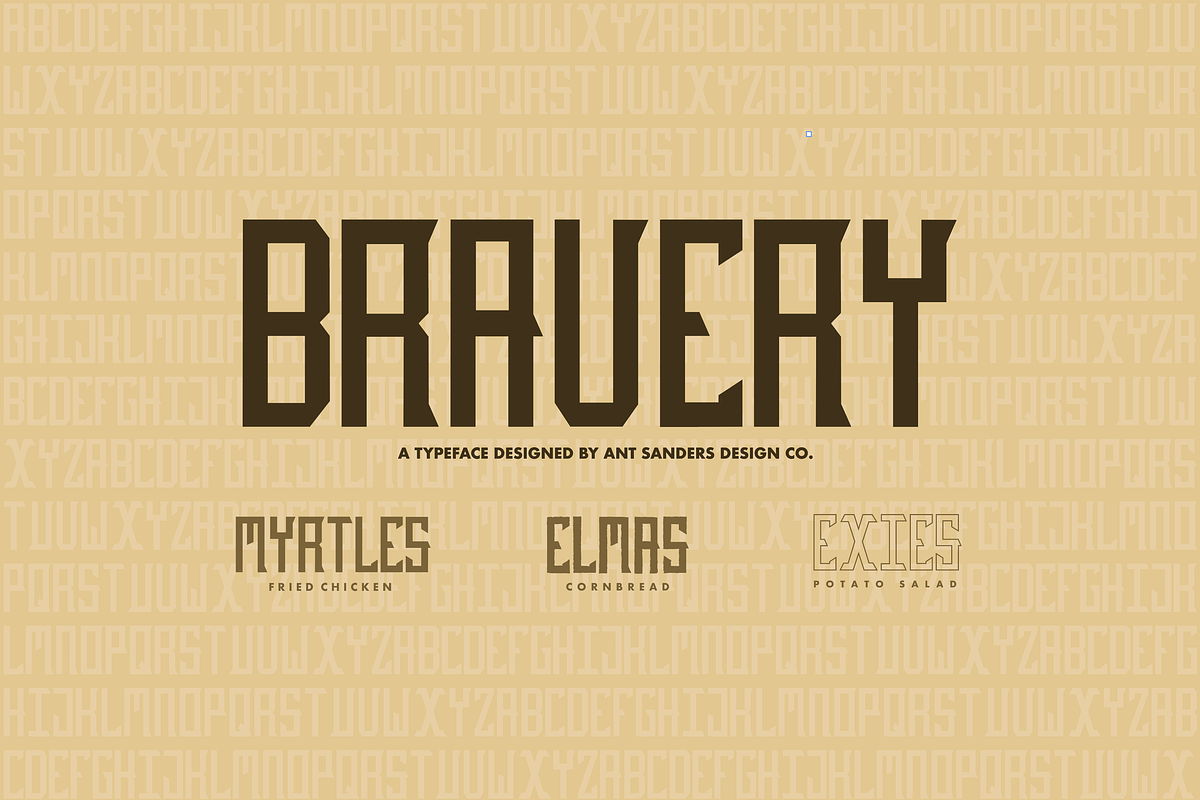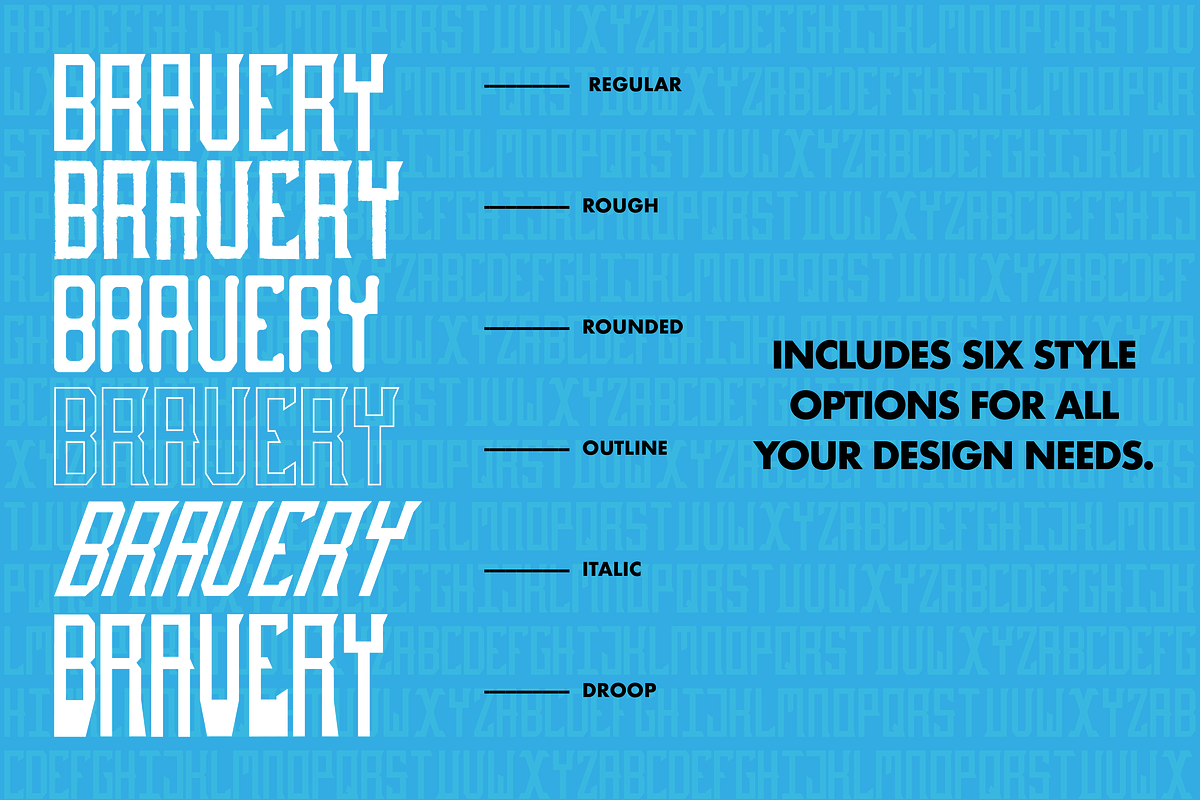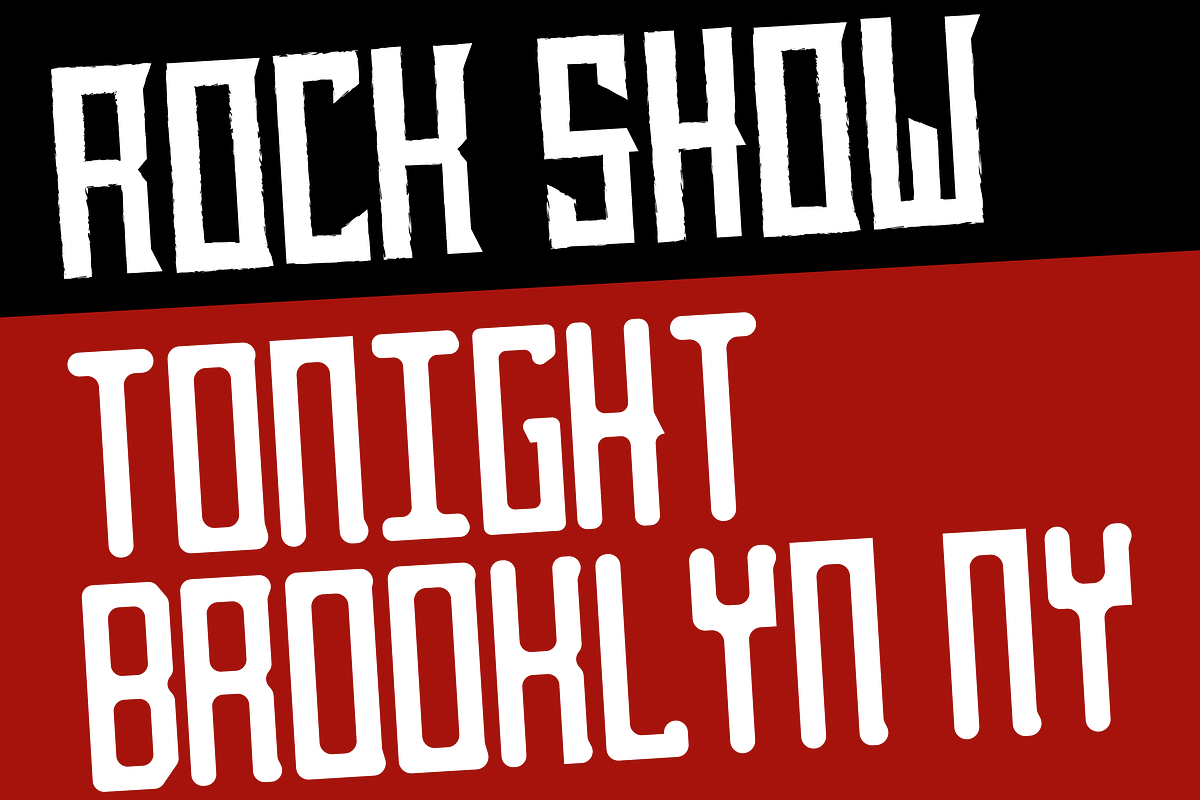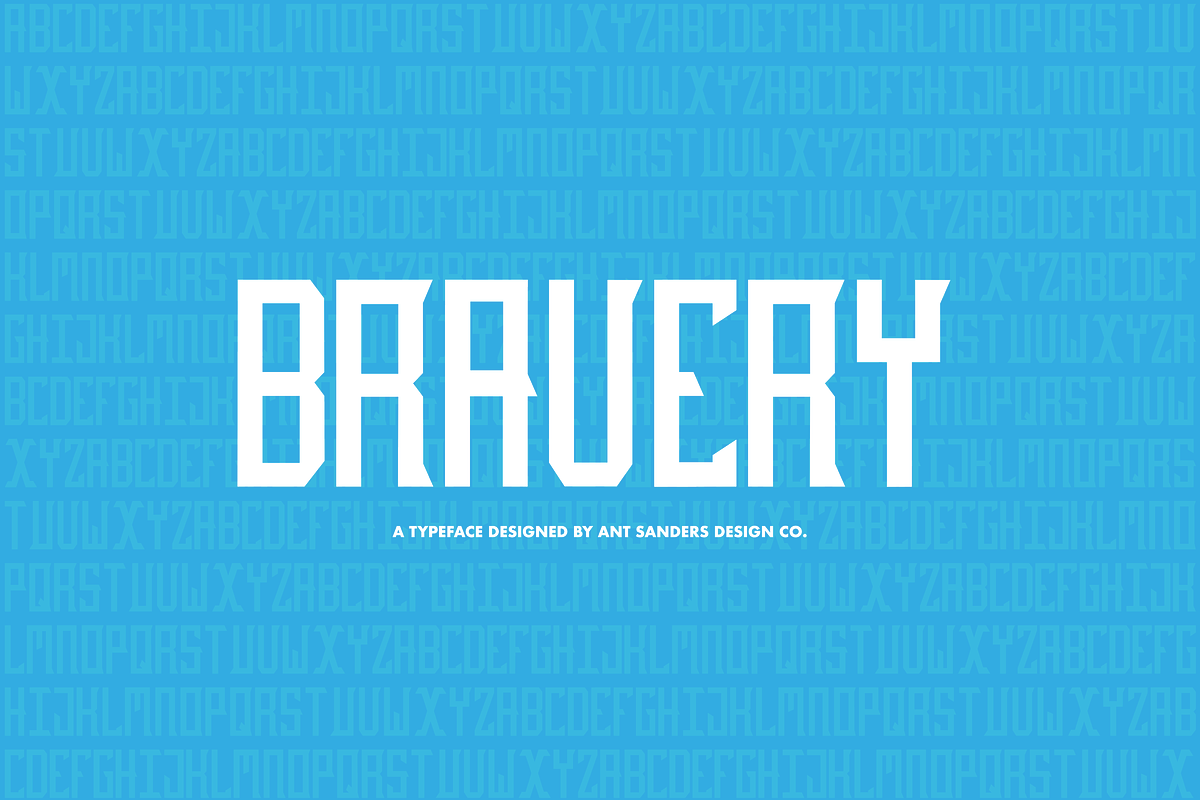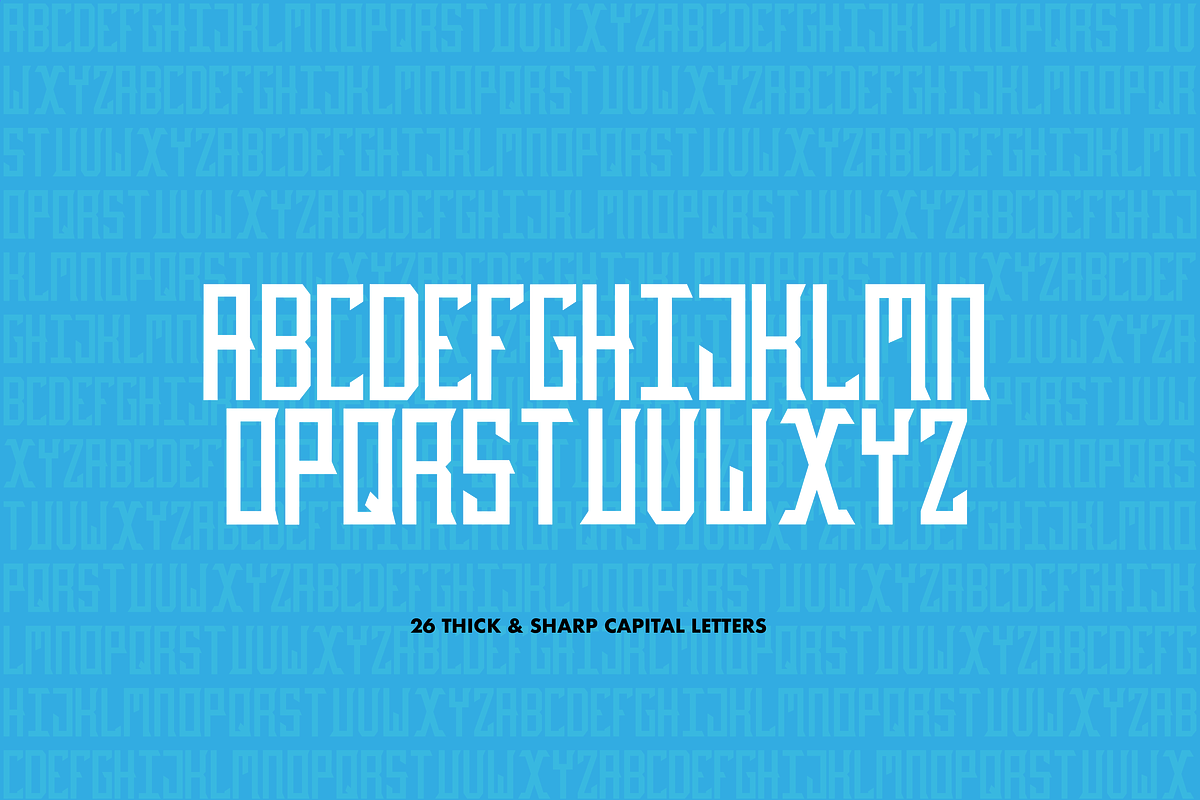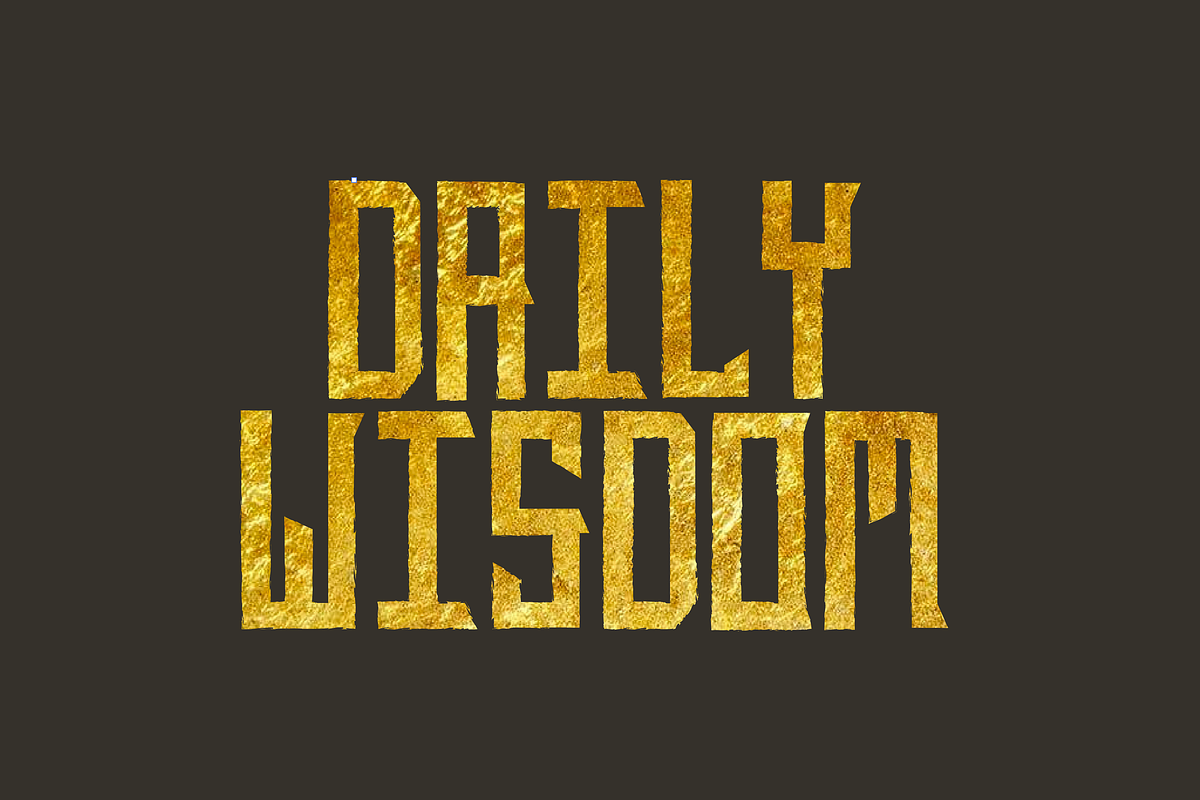
ASD Bravery Font Family
ASD Bravery Font Family by antsandersdesign is a font selected for branding, posters, packaging, typography.
Why ASD Bravery Font Family is worth a look
ASD Bravery Font Family by antsandersdesign fits naturally into Branding, posters, packaging, typography.